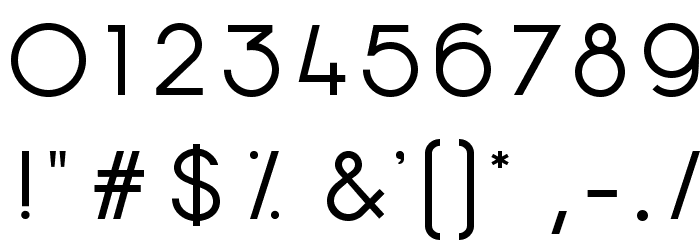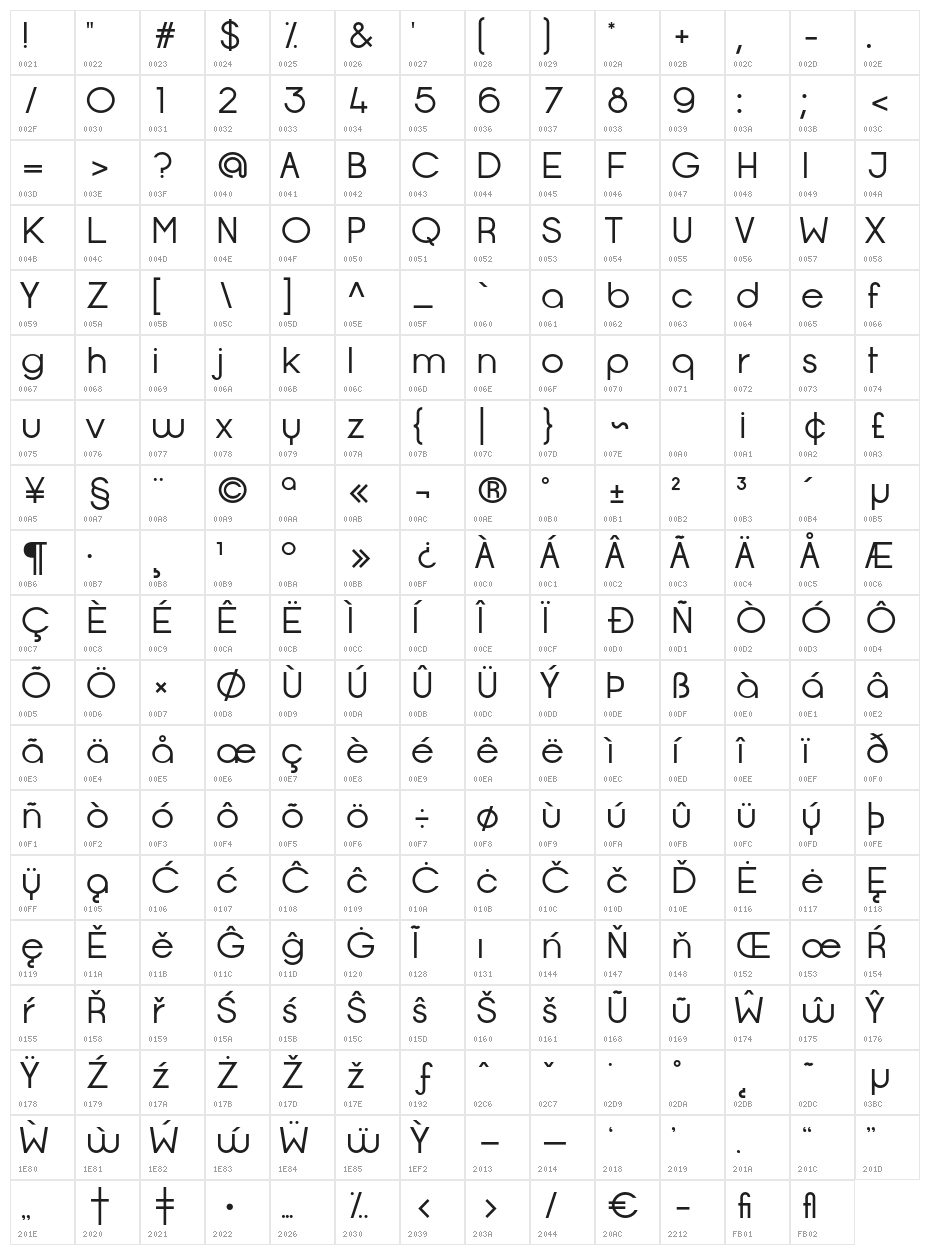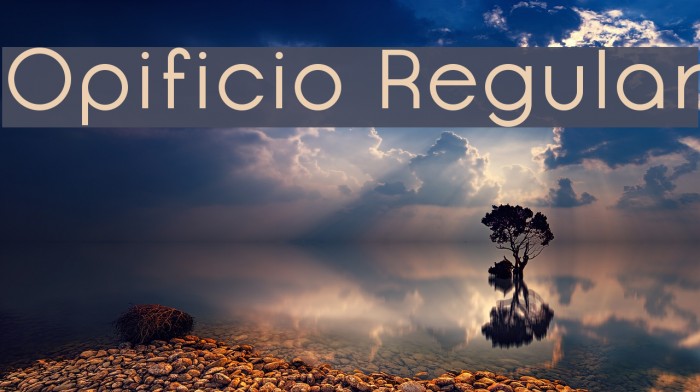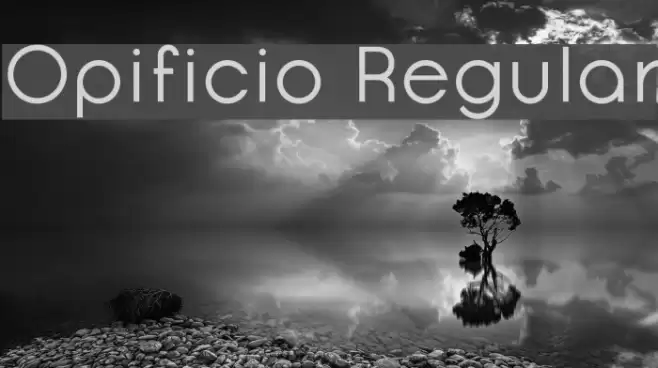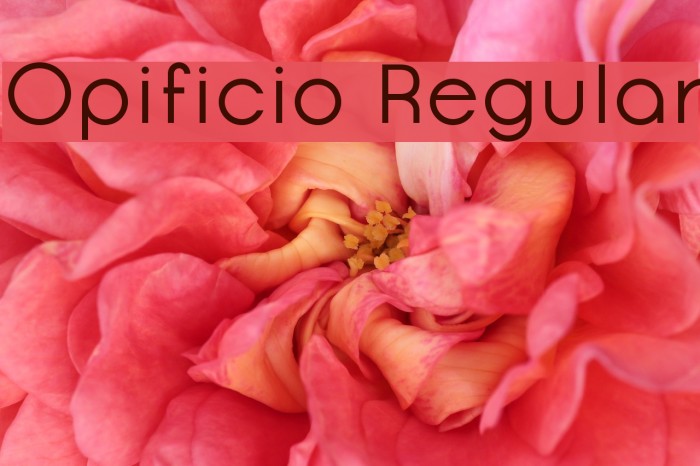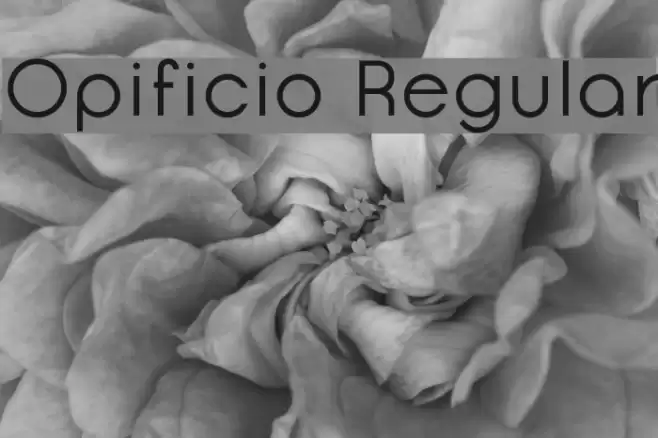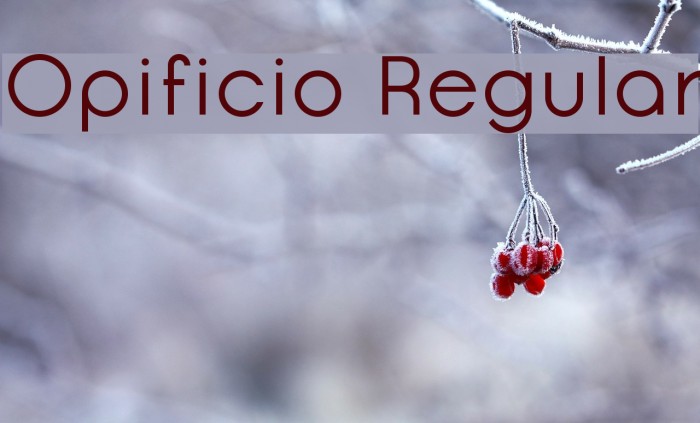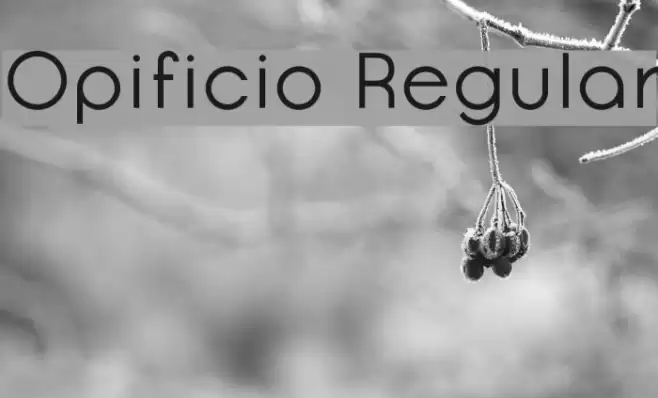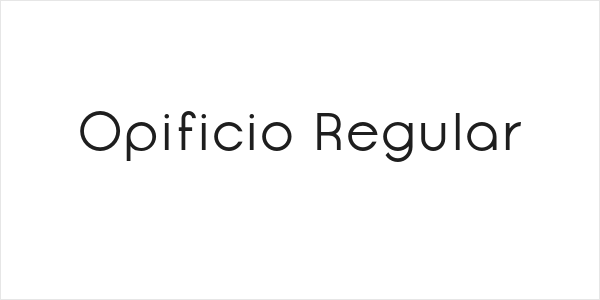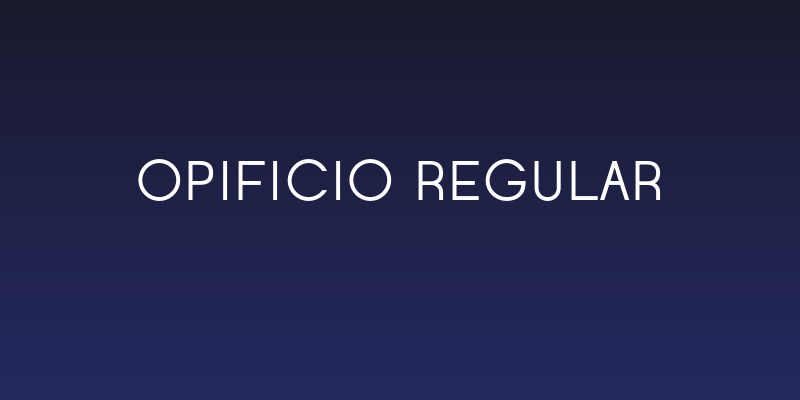
Opificio Regular Font
Opificio Regular Description
This font features a clean and modern sans-serif design with a geometric structure. The characters are well-balanced, with consistent stroke widths that provide a harmonious appearance. The uppercase letters are bold and assertive, while the lowercase letters maintain a friendly and approachable feel. The numerals are clear and easy to read, making them suitable for various applications. Special characters are included, offering versatility for different types of content. The overall style is minimalistic, making it ideal for contemporary design projects.